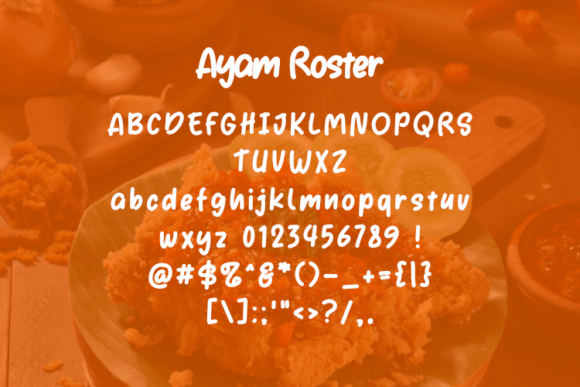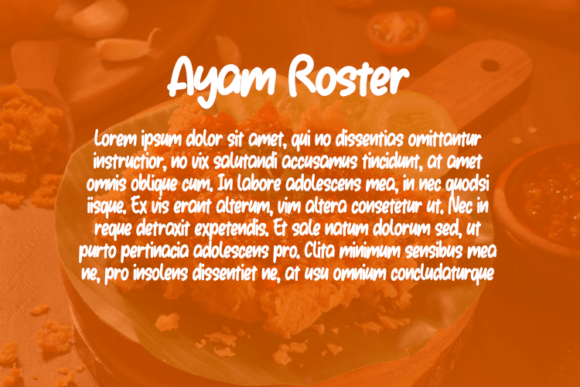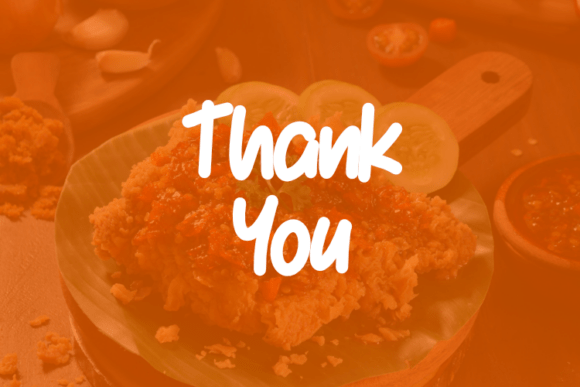
Ayam Roster Font: Elevate Your Designs with Style and Personality
Are you a designer or crafter looking for a font that can add a unique touch to your creations? Look no further than Ayam Roster, a versatile font that effortlessly imparts style and personality to your designs. In this article, we’ll explore the features and benefits of Ayam Roster, and how it can help you take your designs to the next level.
What is Ayam Roster Font?
Ayam Roster is a modern font designed to help you create stunning designs with ease. Its unique style and versatility make it perfect for a wide range of applications, from clothing designs and t-shirts to product labels and branding materials. Whether you’re a professional designer or a crafty DIY enthusiast, Ayam Roster is the perfect typography solution to bring your visions to life.
Key Features of Ayam Roster Font
- Versatility: Ayam Roster is a highly versatile font that can be used in a variety of design concepts, from modern and sleek to vintage and rustic.
- Seamless integration: Ayam Roster seamlessly welds with all design concepts and software applications, ensuring harmony in design and leaving an unforgettable impression.
- Unique style: Ayam Roster has a unique style that sets it apart from other fonts, making it perfect for designers and crafters who want to add a personal touch to their creations.
Benefits of Using Ayam Roster Font
So, why choose Ayam Roster for your design needs? Here are just a few benefits of using this amazing font:
- Adds style and personality: Ayam Roster effortlessly imparts style and personality to your designs, making them stand out from the crowd.
- Perfect for various applications: Ayam Roster is ideal for a wide range of applications, including clothing designs, t-shirts, product labels, and branding materials.
- Leaves a lasting impression: Ayam Roster’s unique style and seamless integration with design concepts ensure that your creations leave a lasting impression on your audience.
Design Ideas with Ayam Roster Font
Ayam Roster is a versatile font that can be used in a wide range of design applications. Here are a few ideas to get you started:
- T-shirt designs: Use Ayam Roster to create eye-catching t-shirt designs that are sure to turn heads.
- Clothing labels: Add a personal touch to your clothing labels with Ayam Roster’s unique style.
- Product branding: Use Ayam Roster to create stunning product branding materials, such as labels and packaging.
- Posters and flyers: Add a touch of personality to your posters and flyers with Ayam Roster’s bold and stylish design.
In conclusion, Ayam Roster is a versatile font that can add style and personality to your designs. Its unique style, seamless integration with design concepts, and ease of use make it perfect for designers and crafters of all levels. Whether you’re looking to create stunning t-shirt designs, clothing labels, or product branding materials, Ayam Roster is the perfect typography solution to bring your visions to life.